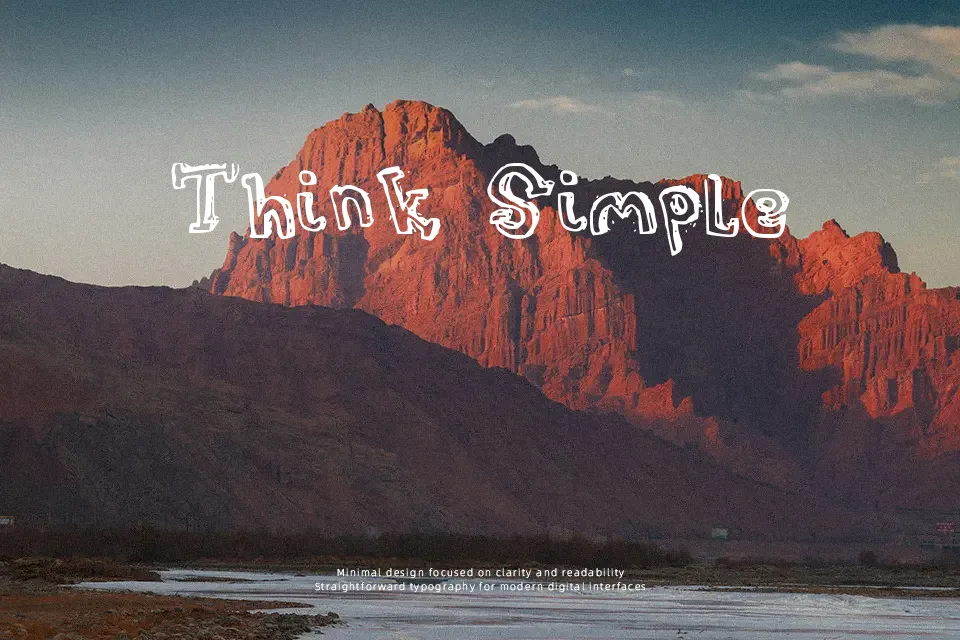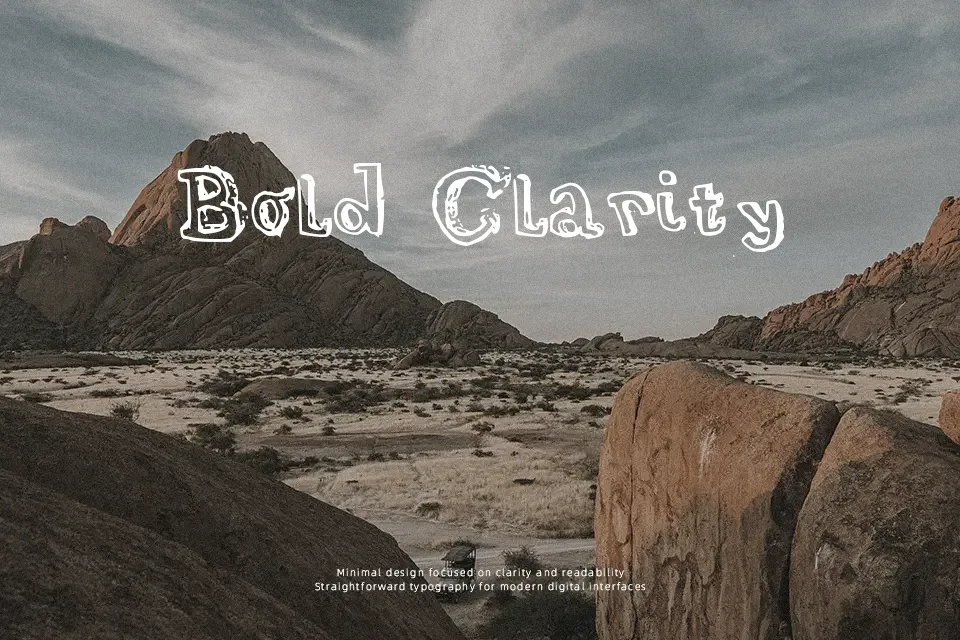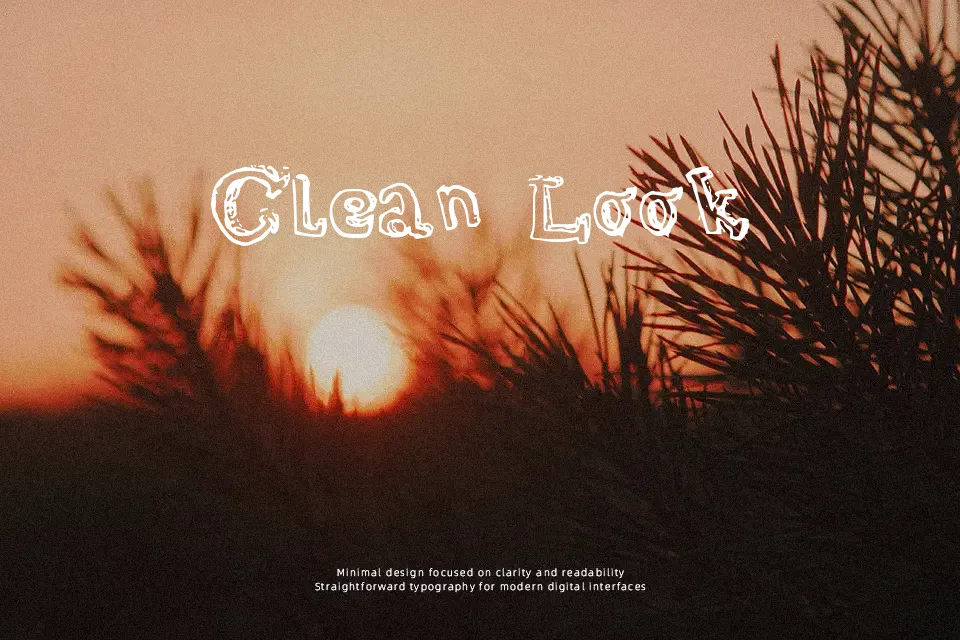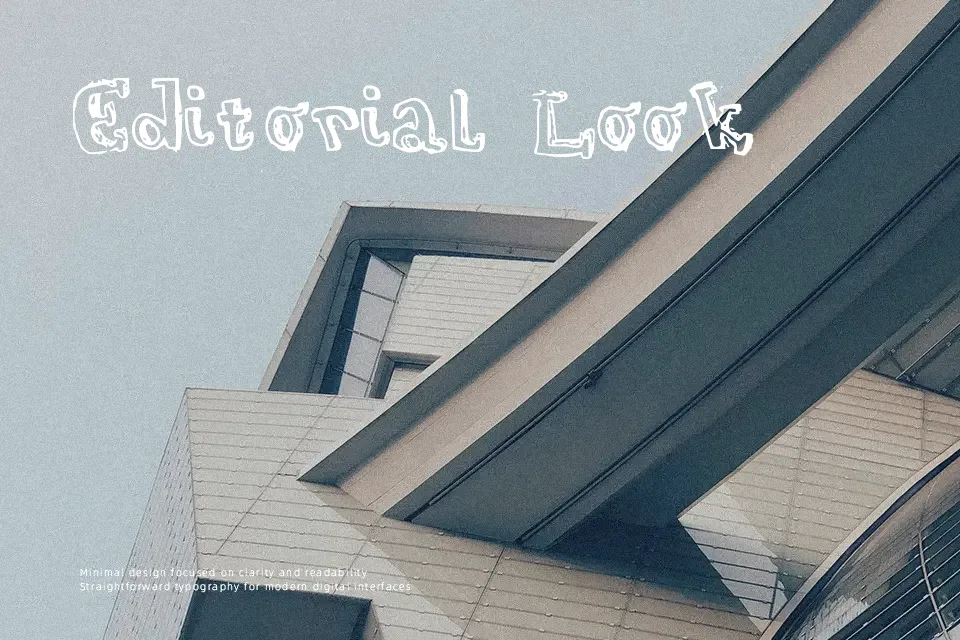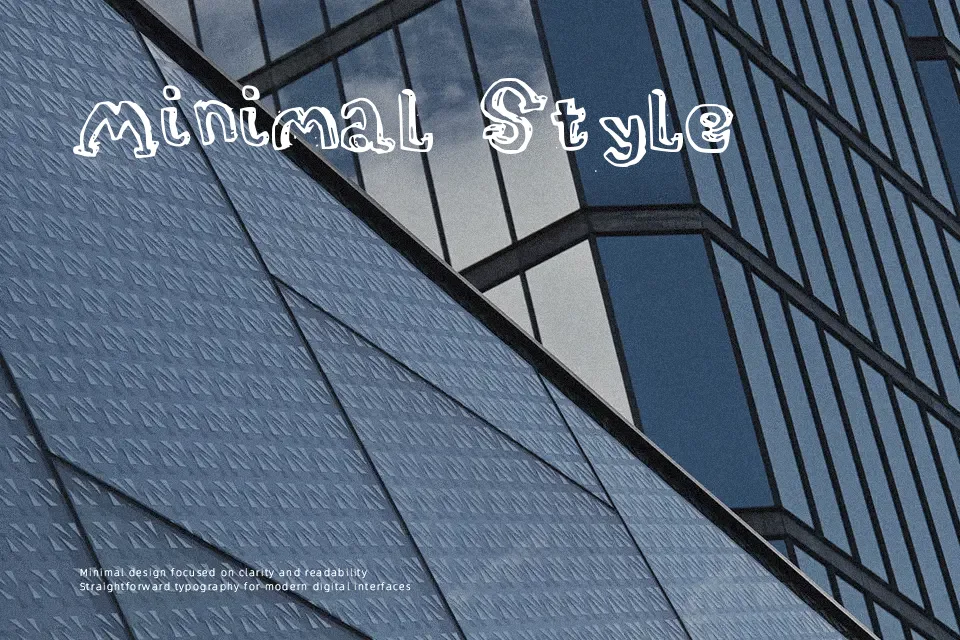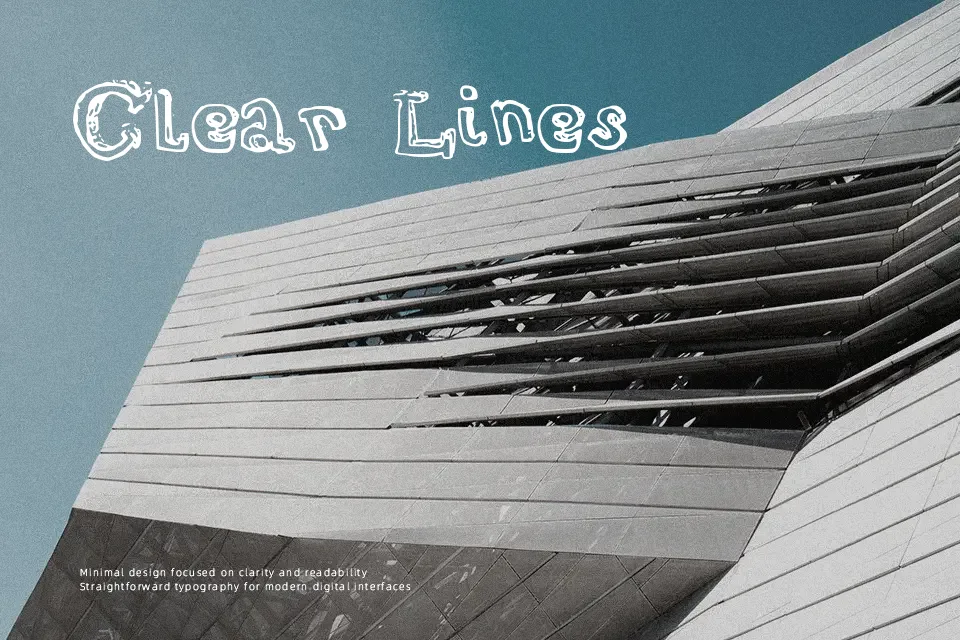
Turtleneck Font
Designed by Antonie vd M
Turtleneck Font features irregular hand-rendered contours paired with generous character widths and playful comic proportions. Thick strokes show spontaneous weight transitions and rounded edges, while relaxed spacing prevents adjacent glyphs from colliding across short lines. In practical testing, the letterforms deliver immediate personality in educational graphics, youth apparel labels, and animated video titles where formal precision is unnecessary. The open counters maintain recognizable silhouettes at medium display scales, ensuring clear readability across prominent signage. However, the organic variations and uneven baseline make the typeface ill-suited for dense body paragraphs or formal corporate publications where sustained reading comfort is essential.
Best For: children’s book covers,cartoon title graphics,youth apparel labels,school event posters
Not Ideal For: long paragraph text,corporate reports,small interface labels,dense editorial layouts
Perfect for branding, headline, and kids, with a creative and cartoon style.